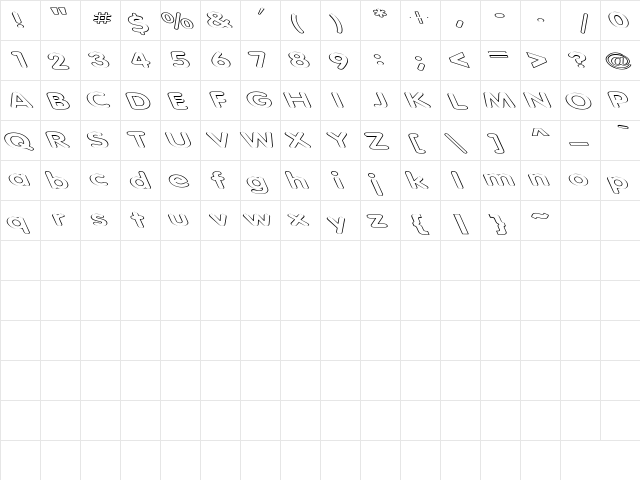
Tubular Hollow Ex Lefti Regular
Design Context for Tubular Hollow Ex Lefti Typeface
Tubular Hollow Ex Lefti is a composed and adaptable typeface that performs quietly and consistently across a wide range of design contexts.
Pro Tip: Use Tubular Hollow Ex Lefti in both headline and body roles to test its range before committing to a single application.